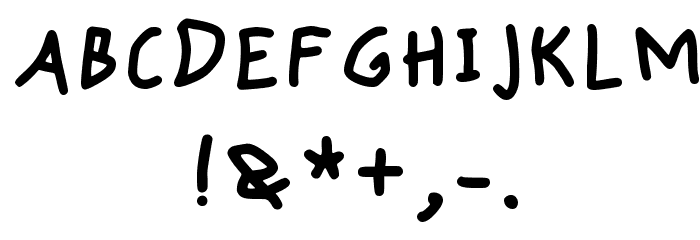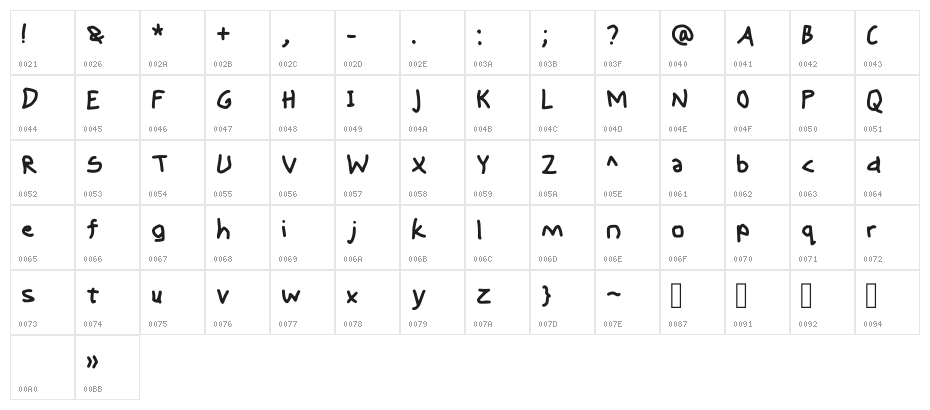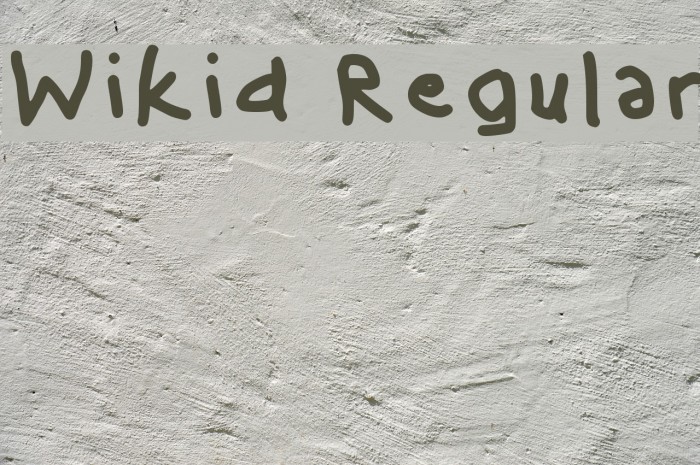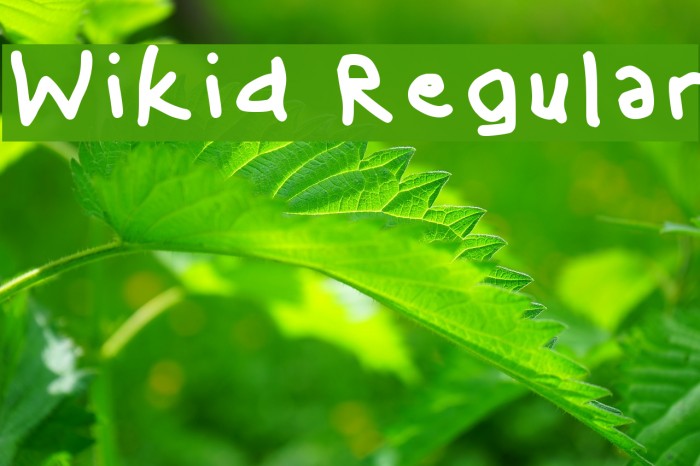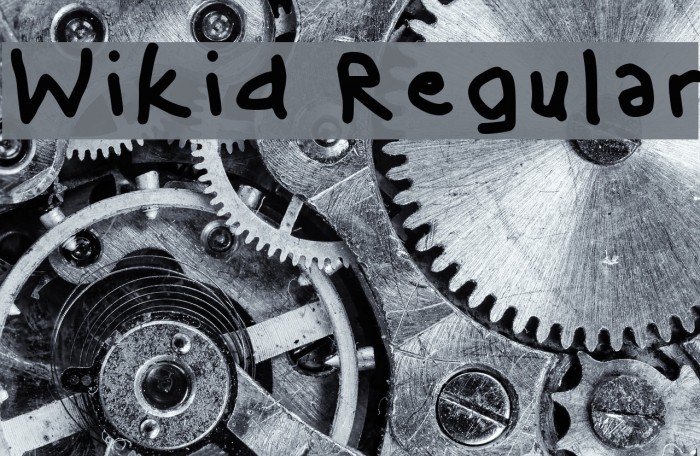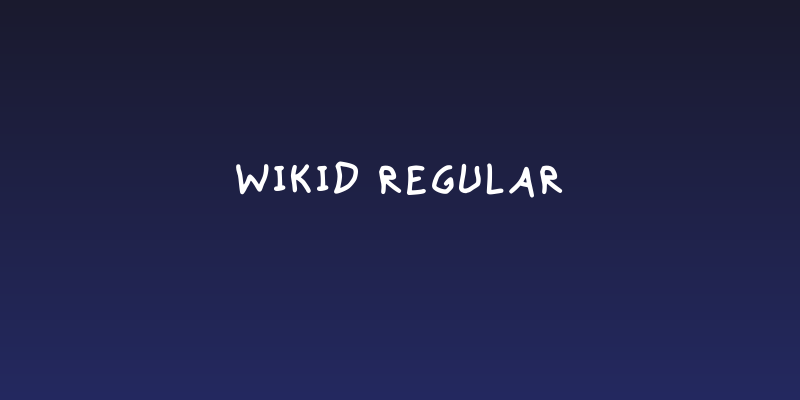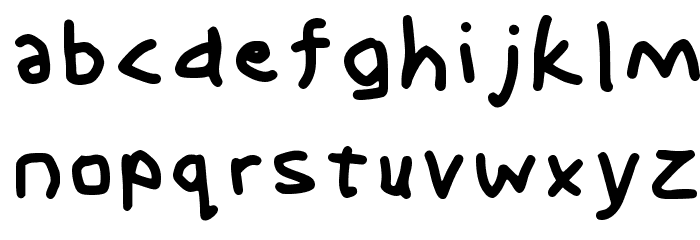
Wikid Regular Font
Wikid Regular Description
This font features a playful and casual handwritten style, characterized by its irregular and organic letterforms. The strokes are uneven, giving it a natural and informal appearance. The uppercase and lowercase letters maintain a consistent style, with rounded edges and a slightly tilted orientation, adding to its whimsical charm. The numerals and special characters follow the same aesthetic, ensuring a cohesive look across all text. This font is ideal for projects that require a personal touch or a relaxed vibe.